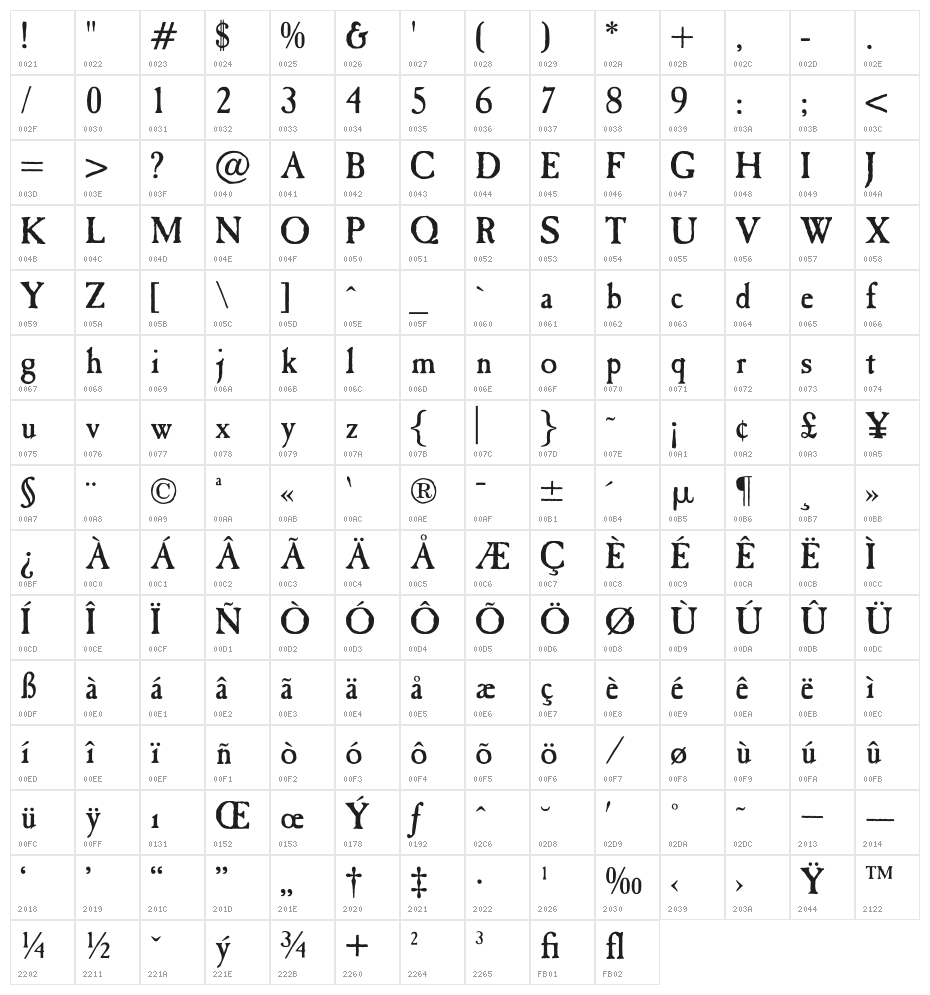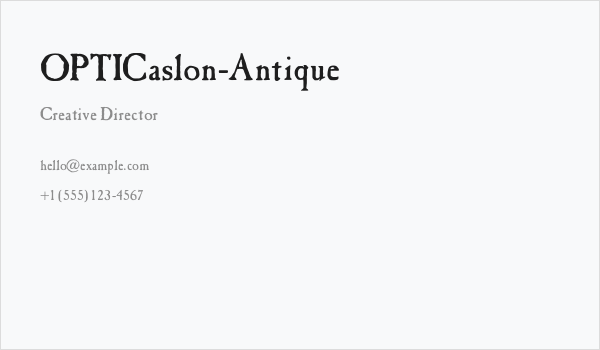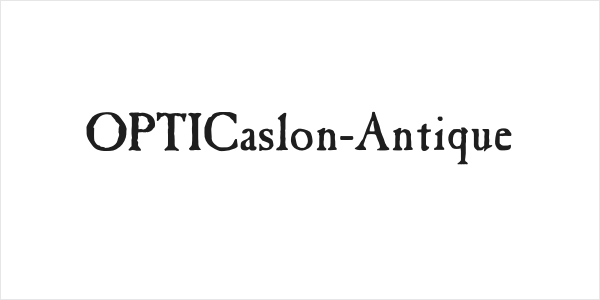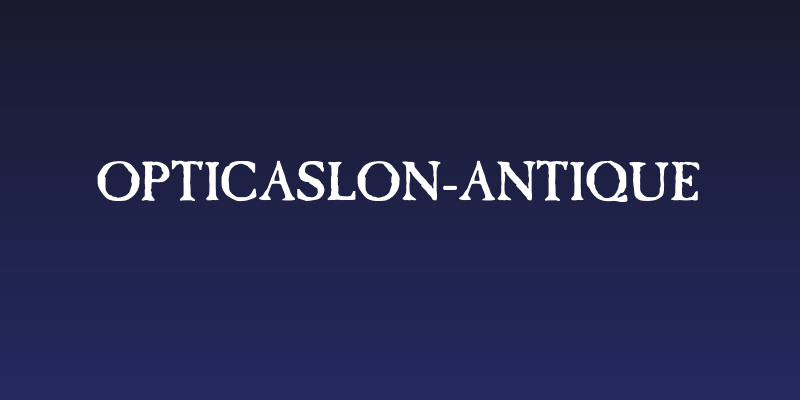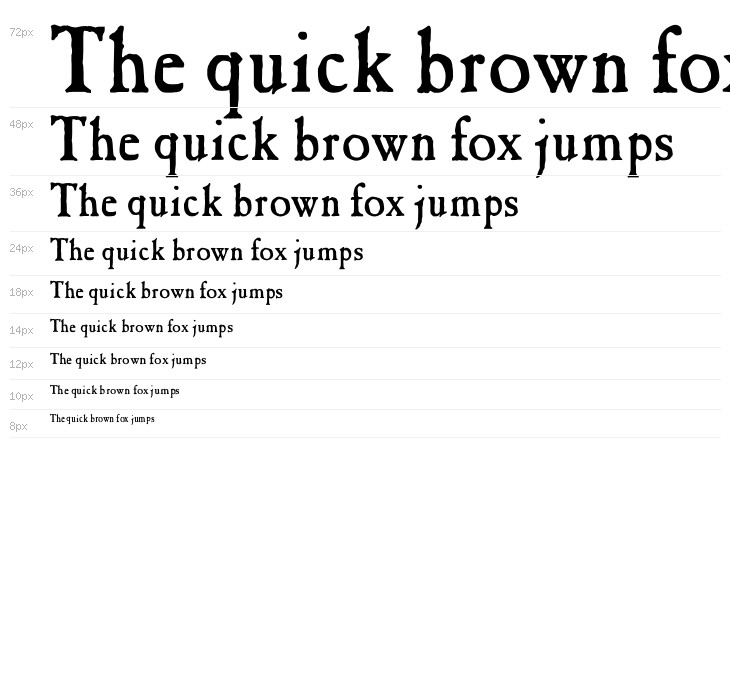
OPTICaslon-Antique Font
OPTICaslon-Antique Description
This font exudes a vintage charm with its antique style, reminiscent of classic serif fonts. The characters have a slightly rough and textured appearance, giving them an aged and historical feel. The uppercase letters are bold and commanding, while the lowercase letters maintain a consistent style with a touch of elegance. The numerals are clear and distinct, matching the overall antique aesthetic. Special characters are well-integrated, maintaining the font's unique style. This font is perfect for projects that require a historical or classic touch, such as vintage posters, book covers, or branding for traditional products.
| Proposed Projects | Ideal for vintage posters, historical book covers, and traditional branding. |